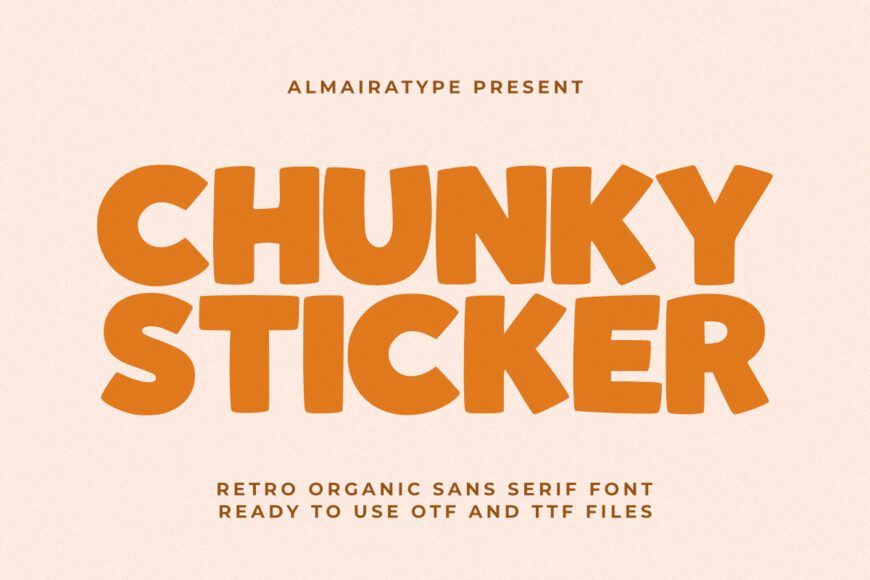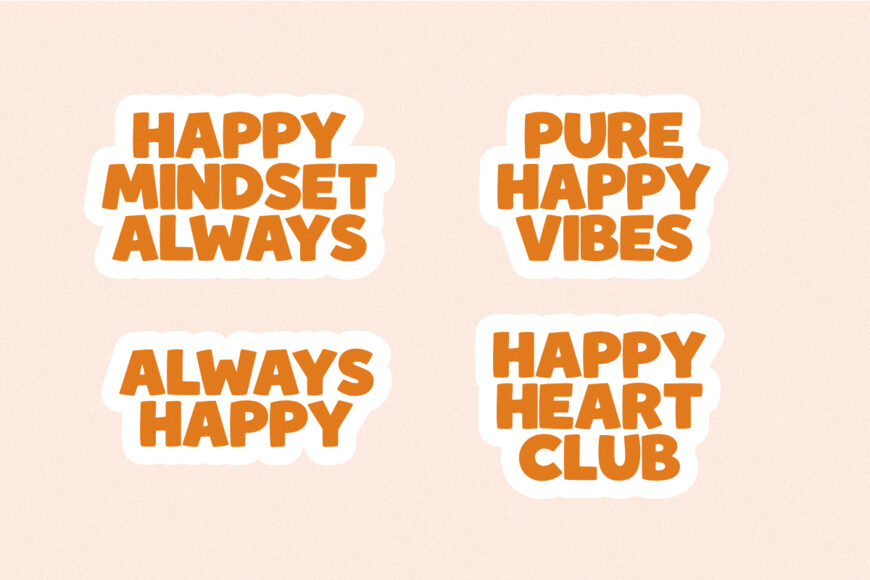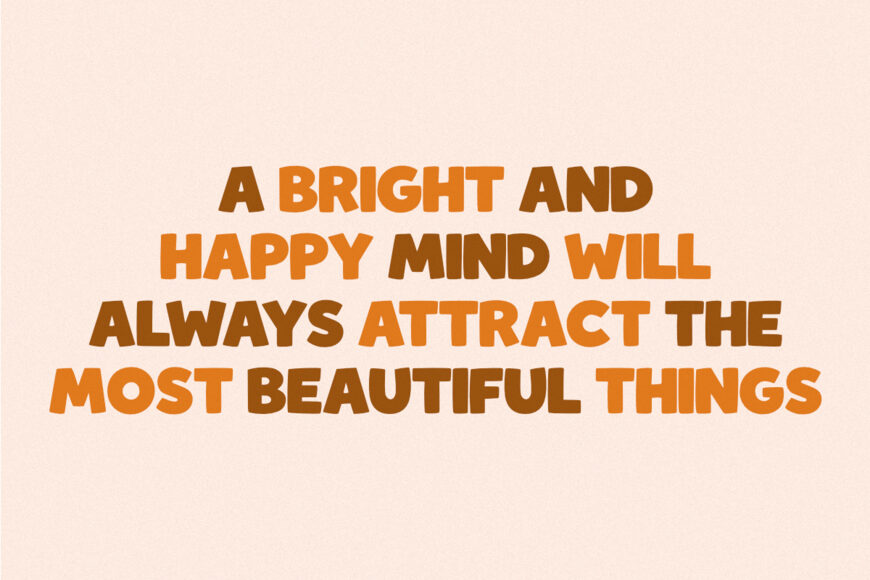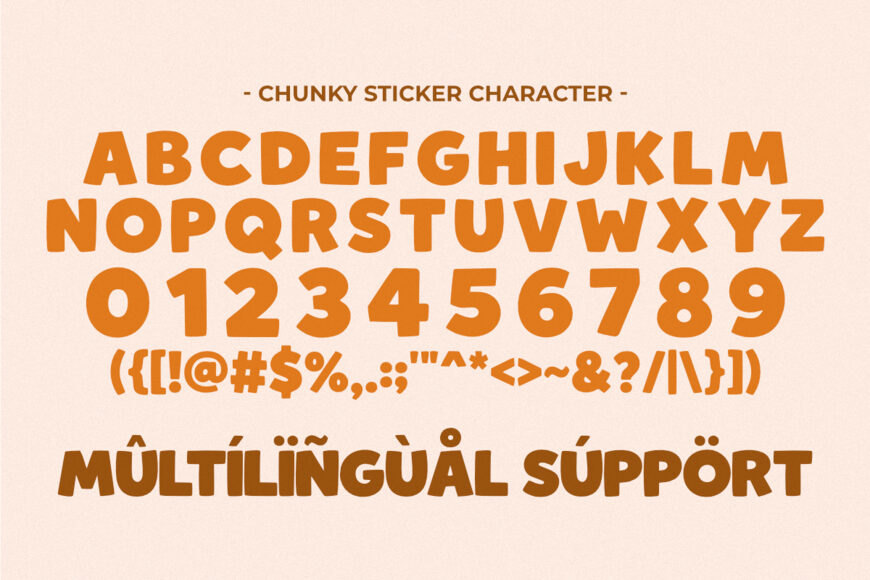
Chunky Sticker is a retro organic sans serif font meticulously designed to bring a delightful vintage warmth and high-impact aesthetic to your modern creative projects.
Featuring a bubbly, extra-thick structural anatomy with a solid display weight and smoothly rounded organic contours, this typeface beautifully bridges the gap between classic 70s nostalgia and contemporary commercial design trends.